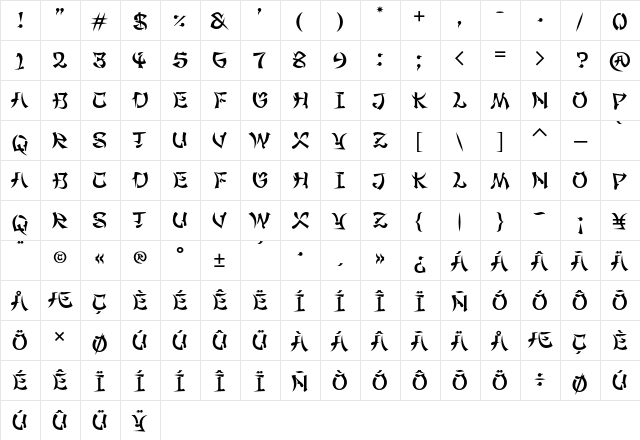
Maximage Gimbadong Regular
| Foundry | Maximage |
| Designer | Maximage |
Design Context for Maximage Gimbadong Typeface
Maximage Gimbadong is a composed and adaptable typeface that performs quietly and consistently across a wide range of design contexts.